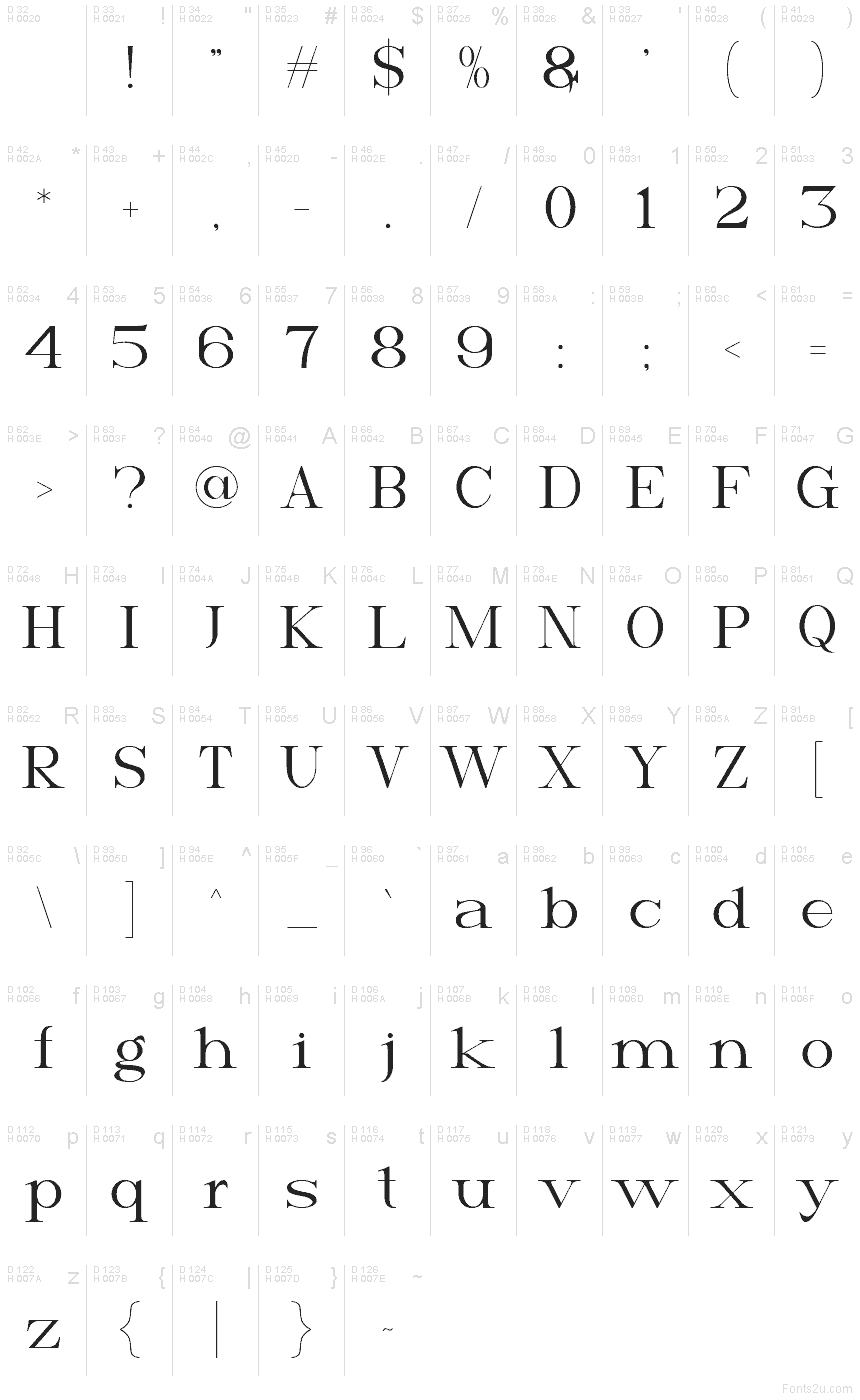
VERIETTA
Verietta font by Gilang Ternadho is a free serif font with a touch of elegant contemporary style. Curved letter outlines and subtle sophistication decorate these refined letterforms of both letters and numbers. Lend to your logotypes, website headers, and paragraphs this beautiful addition that elevates different levels of texts equally.